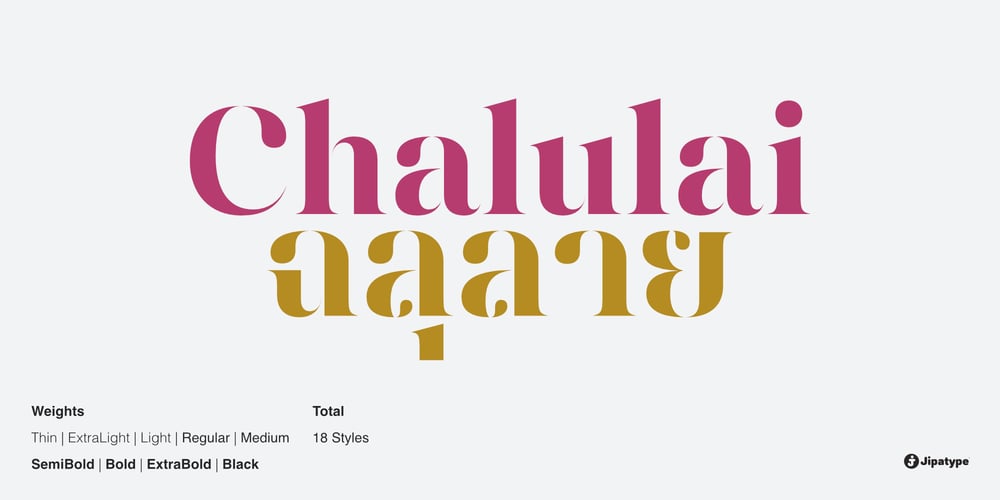
Chalulai Font Family was designed by Anupap Jaichumnan and published by Jipatype. Chalulai contains 18 styles and family package options. Chalulai, a serif typeface, seamlessly merges the aesthetics of stencil letters with a meticulously crafted high-contrast letter structure. Emanating a sense of beauty and delicacy, it offers 18 styles to choose from, supporting both Latin 1 and Thai letters. Ideal for diverse publications that prioritize headlines or a distinctive tagline.